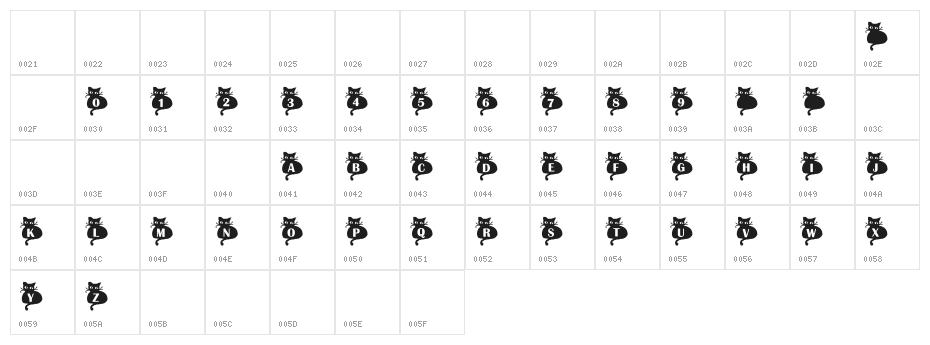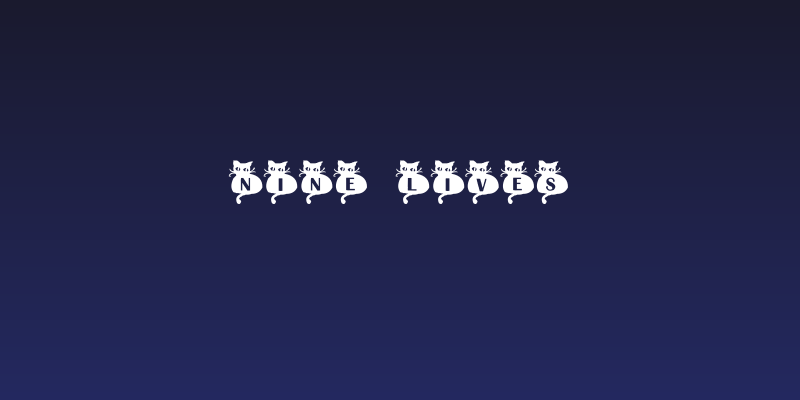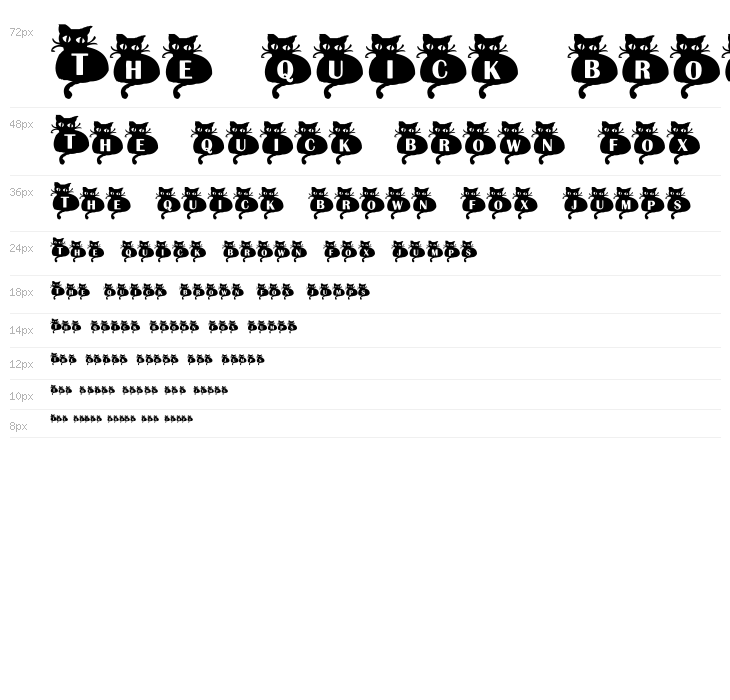
Nine Lives Font
Nine Lives Description
This font features a playful and whimsical design, characterized by its use of cat-themed elements. Each letter is creatively integrated with feline motifs, such as ears, tails, and whiskers, giving it a unique and charming appearance. The font maintains a consistent line weight, ensuring readability while adding a touch of fun to the text. Its decorative style makes it ideal for projects that require a lighthearted and imaginative touch. The characters are well-spaced, providing a balanced and visually appealing layout.
| Overall Style | Whimsical |
| Proposed Projects | Ideal for children's books, pet-related branding, playful invitations, and themed event posters. |